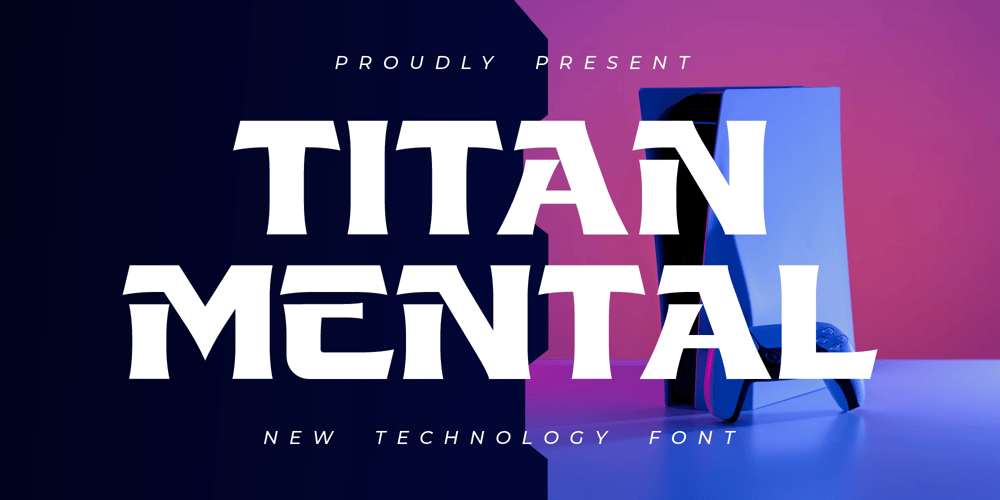
Titan Mental Font Family was designed by Hunaiza Aljahsy and published by HunaizaAljahsy. Titan Mental contains 1 styles and family package options. TITAN METAL is a bold modern display font with serif style. It’s retro, bold, and playful. Perfect if you need a dose of fun in your project. This is a unique display typeface perfect for gorgeous logos & titles.–Uppercase